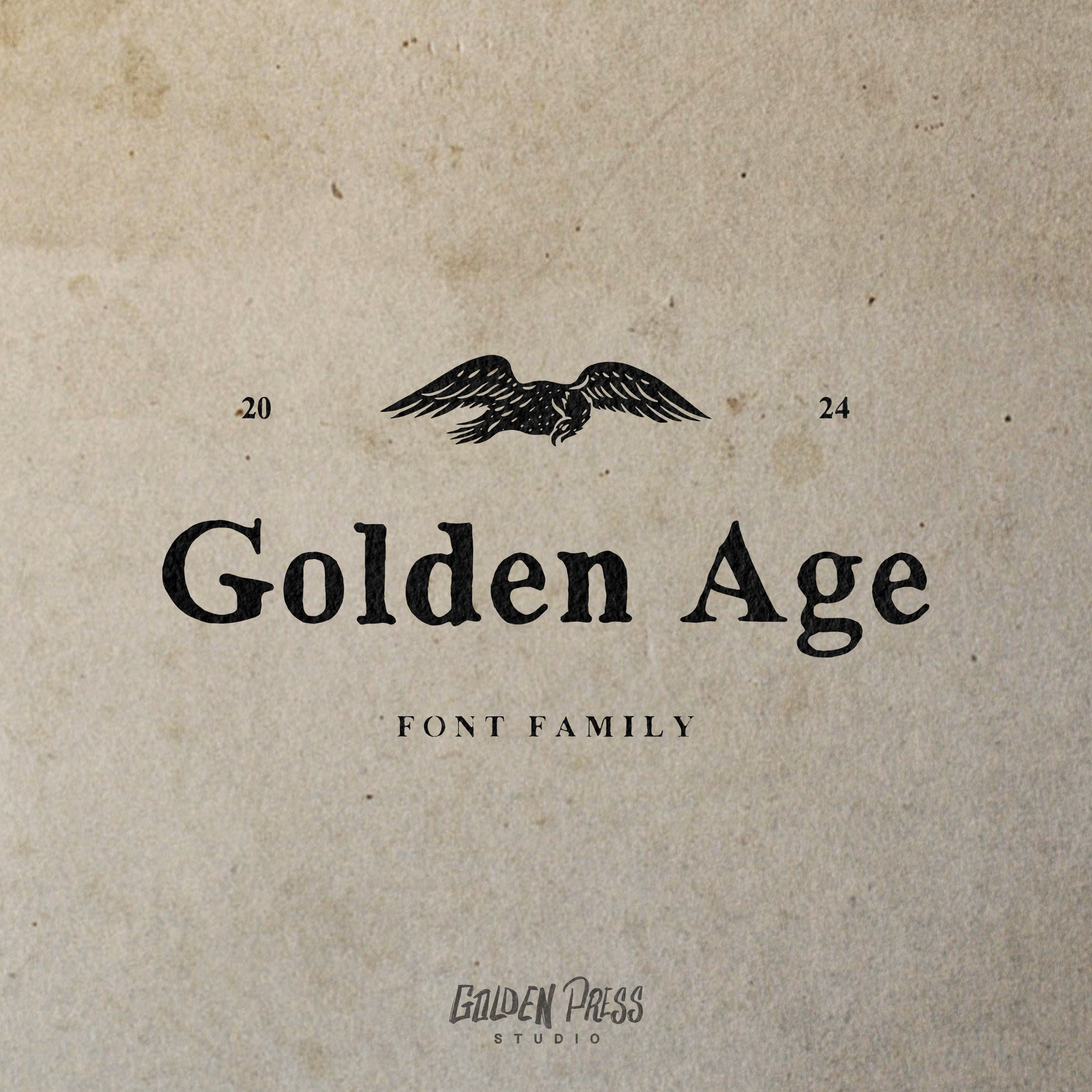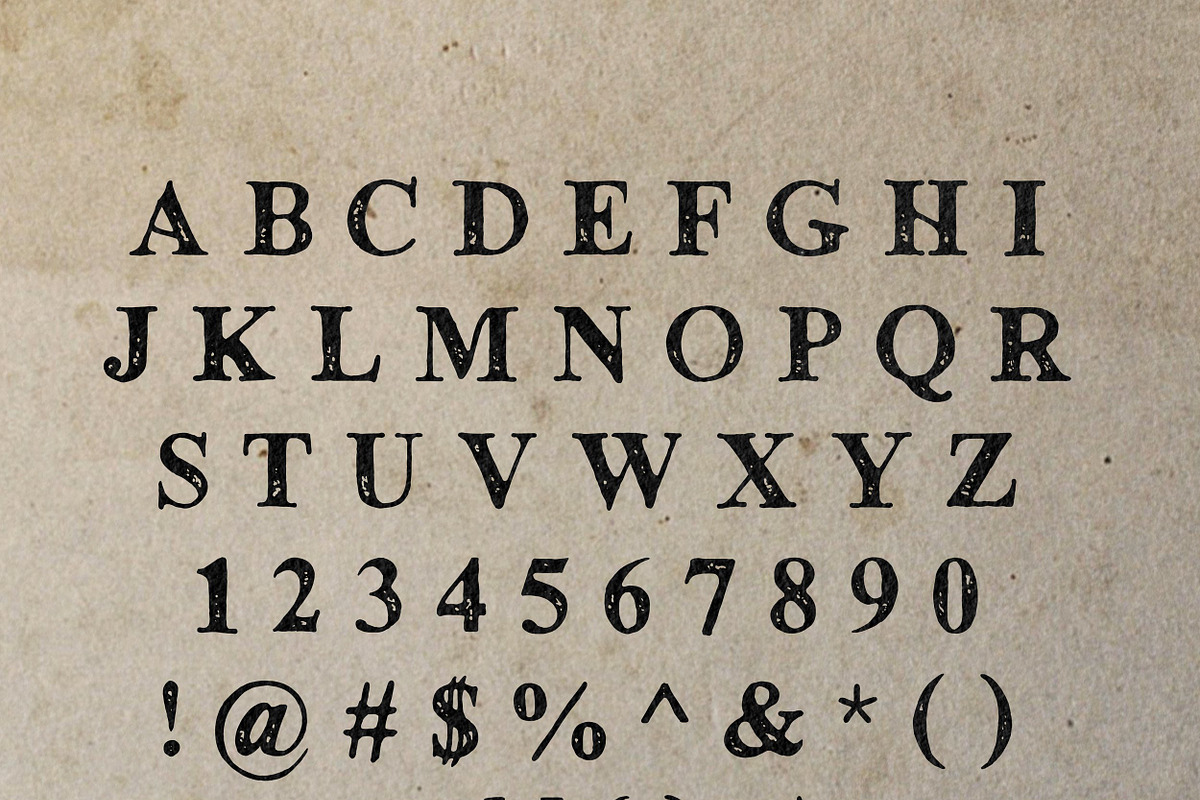
Golden Age Font
This is a hand made serif font that comes with caps and lower case letters as well as four different font styles regular, italic, textured, and weathered.